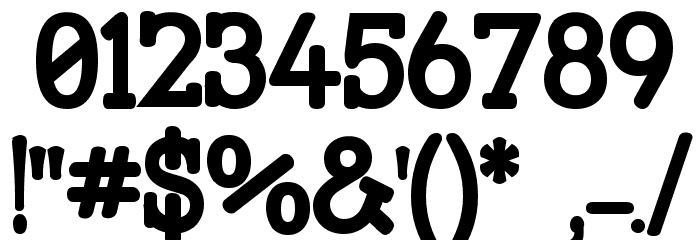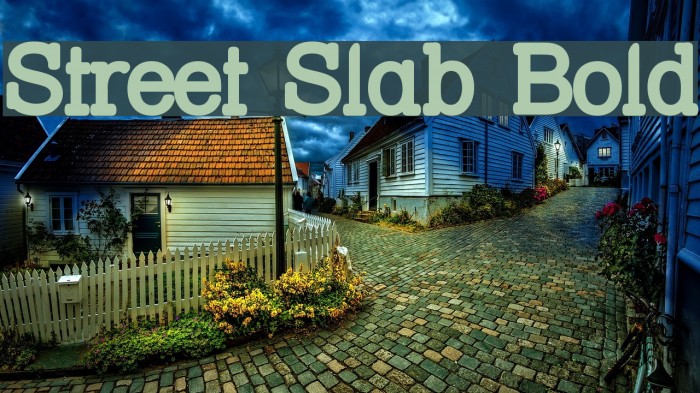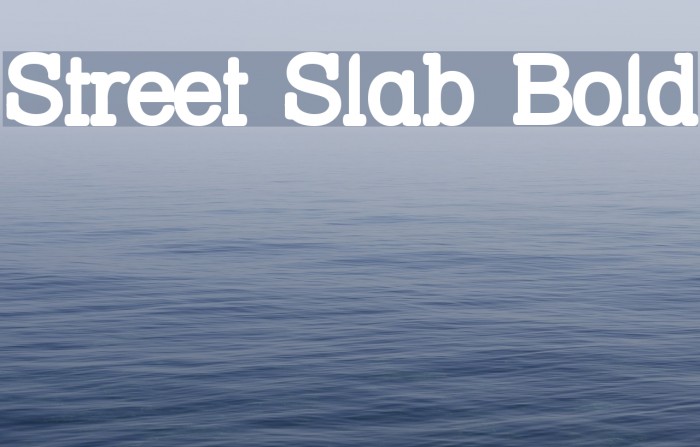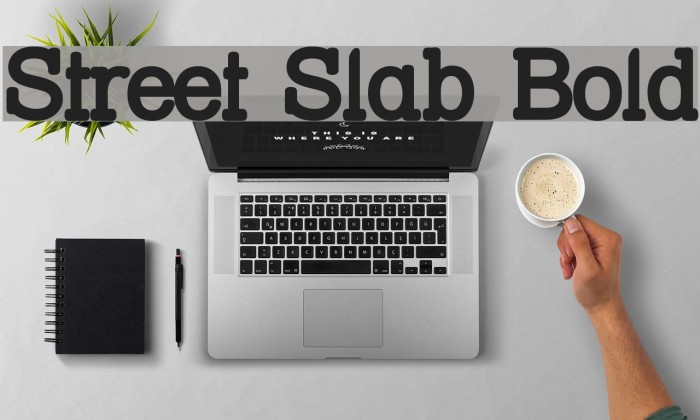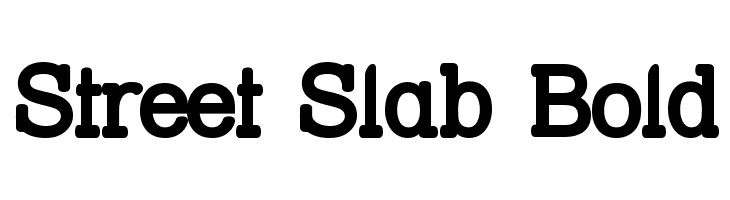
Street Slab Bold Font
This font features a bold and robust slab serif style, characterized by thick, block-like serifs that give it a strong and authoritative presence. The letters are uniformly bold, with a consistent stroke width that enhances readability and impact. The uppercase and lowercase characters maintain a balanced proportion, while the numerals and special characters are designed to complement the overall aesthetic. The font's structure is clean and straightforward, making it suitable for a variety of design applications where clarity and emphasis are required.
A bold slab serif font with strong, block-like serifs and consistent stroke width.
- Proposed Projects: Ideal for headlines, posters, branding materials, and any project requiring a bold, impactful typeface.